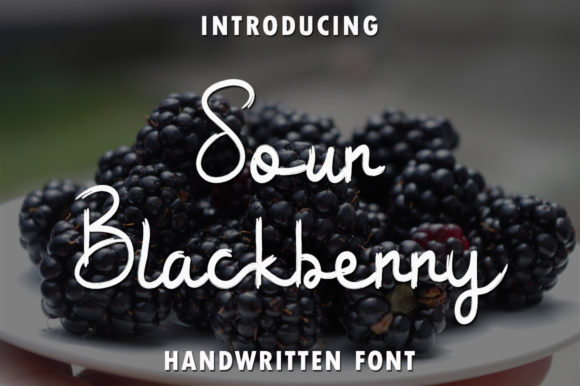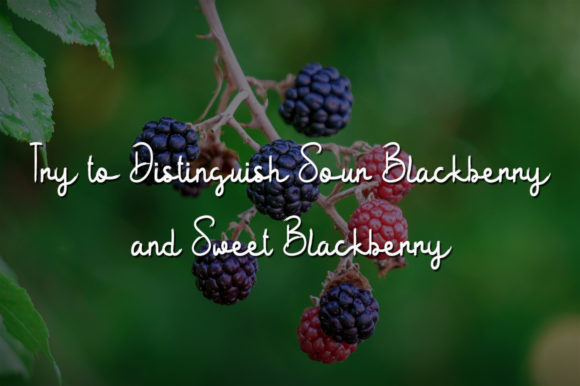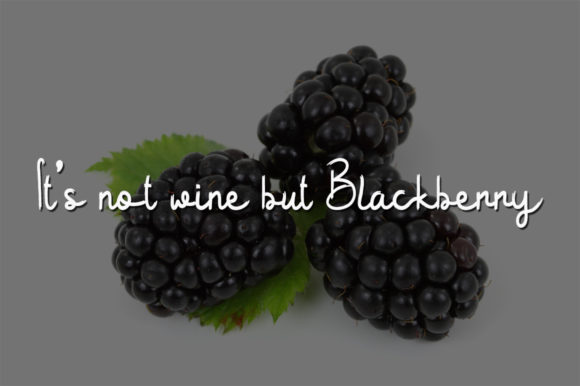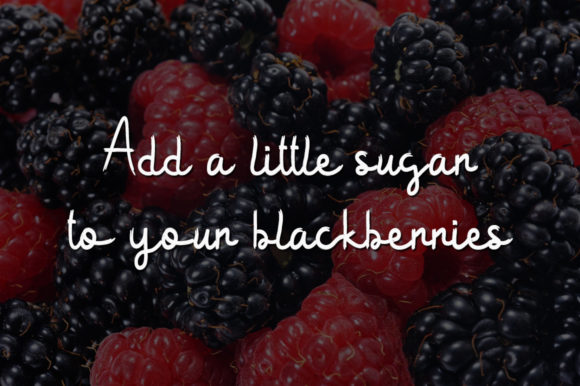
About Sour Blackberry Font
Sour Blackberry is a simple handwritten font that can add a touch of originality and uniqueness to your designs. With its clean and straightforward style, this font allows your creativity to take center stage, making your designs stand out from the crowd.
The simplicity of Sour Blackberry gives it a minimalist and modern appeal. Its clean lines and unadorned letterforms provide a clear and legible foundation for your designs. Whether you’re working on logos, branding materials, or social media graphics, Sour Blackberry can bring a sense of simplicity and clarity to your compositions.
By using Sour Blackberry, you have the opportunity to create designs that are truly distinctive and memorable. The font’s handwritten style adds a personal and authentic touch, allowing you to infuse your designs with a sense of individuality. Its simplicity also ensures that your message remains clear and easy to read, allowing your design concept to shine through.
Sour Blackberry’s versatility makes it suitable for a wide range of design projects. Whether you’re designing posters, invitations, packaging, or web graphics, this font can adapt and complement different visual styles. Its simplicity allows it to blend seamlessly with other design elements, making it a versatile choice for both bold and subtle compositions.
Moreover, Sour Blackberry’s simplicity can be a powerful asset when it comes to creating an impact. Its clean and uncluttered appearance draws attention to the message or visual elements you want to emphasize. This font allows your design concept to take center stage, ensuring that your ideas are effectively communicated to your audience.
In summary, Sour Blackberry is a simple handwritten font that offers a perfect balance of originality and versatility. Its clean and straightforward style allows your creative ideas to shine while adding a touch of authenticity. Whether you’re working on branding, marketing materials, or other design projects, Sour Blackberry can help you create outstanding and unique designs that leave a lasting impression.